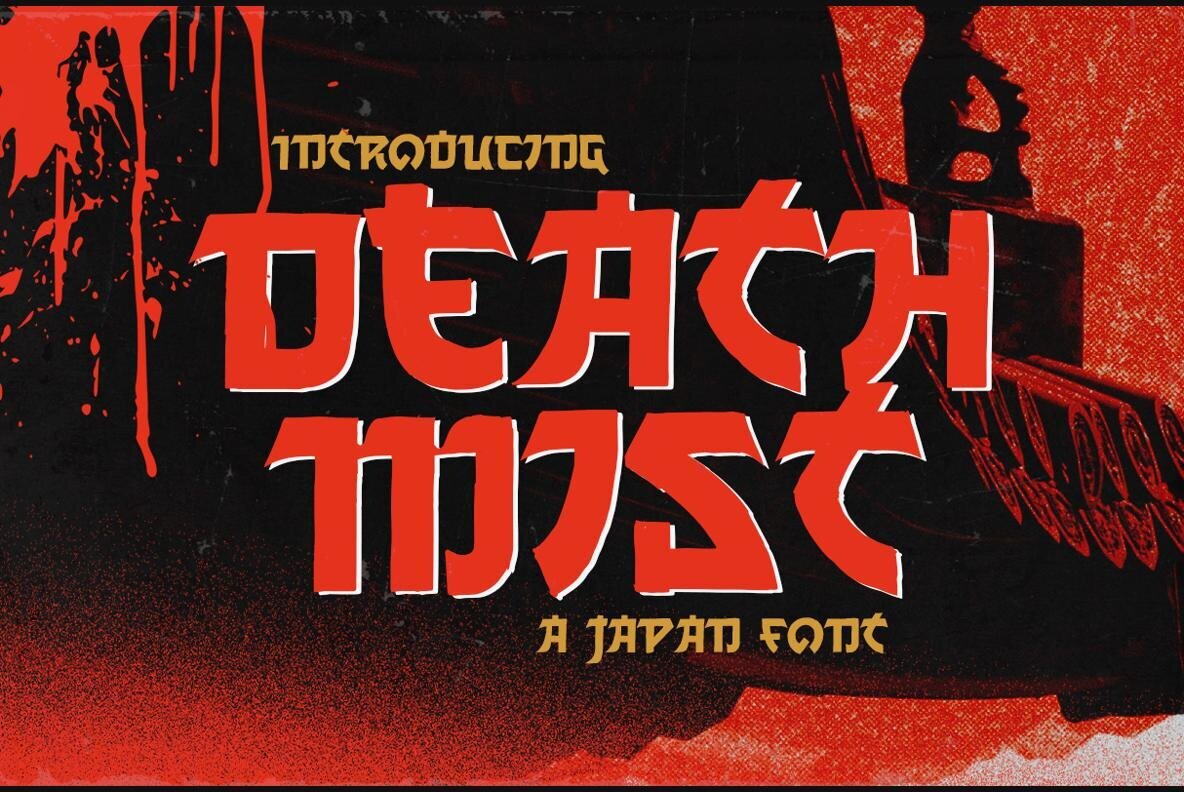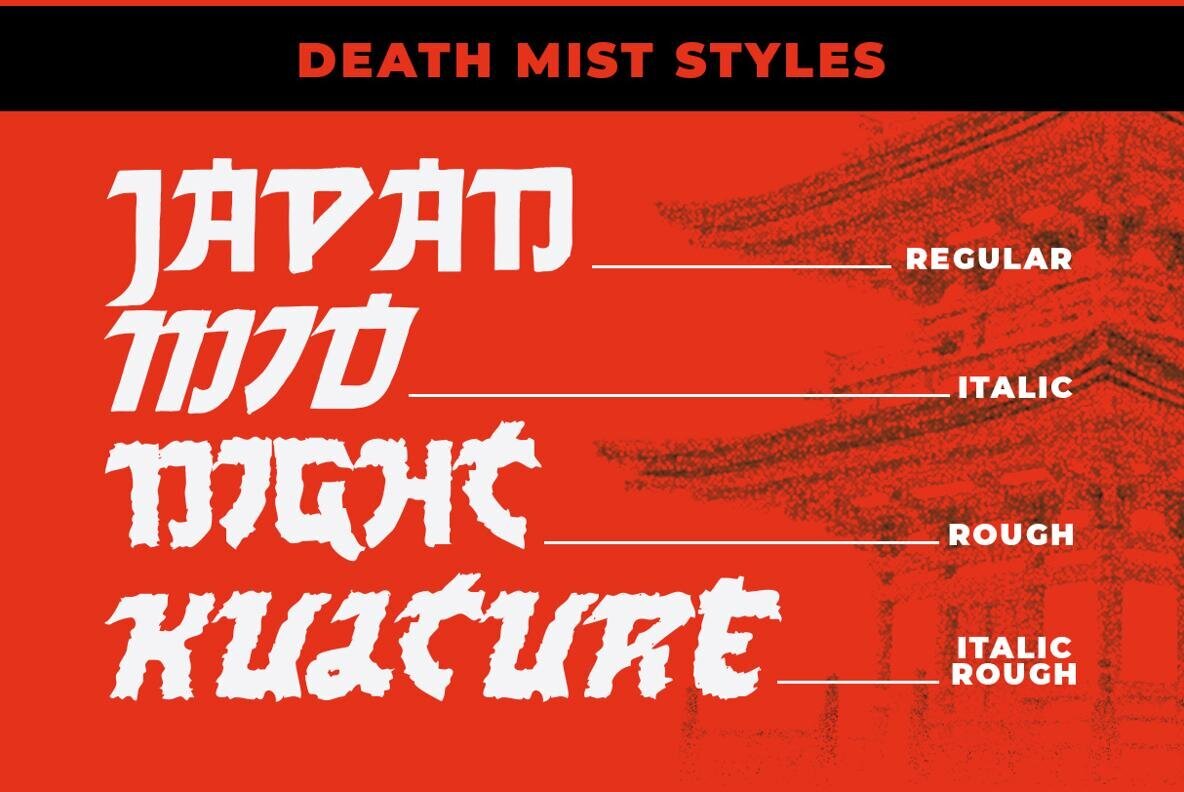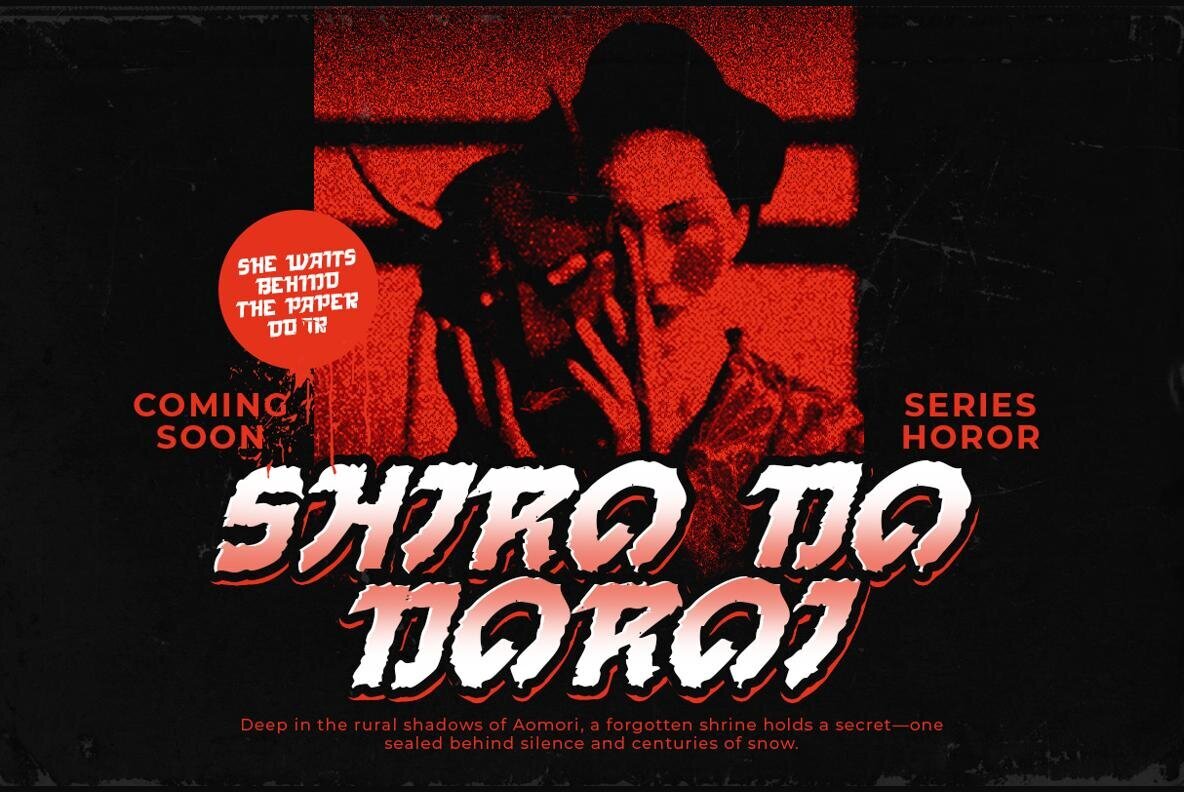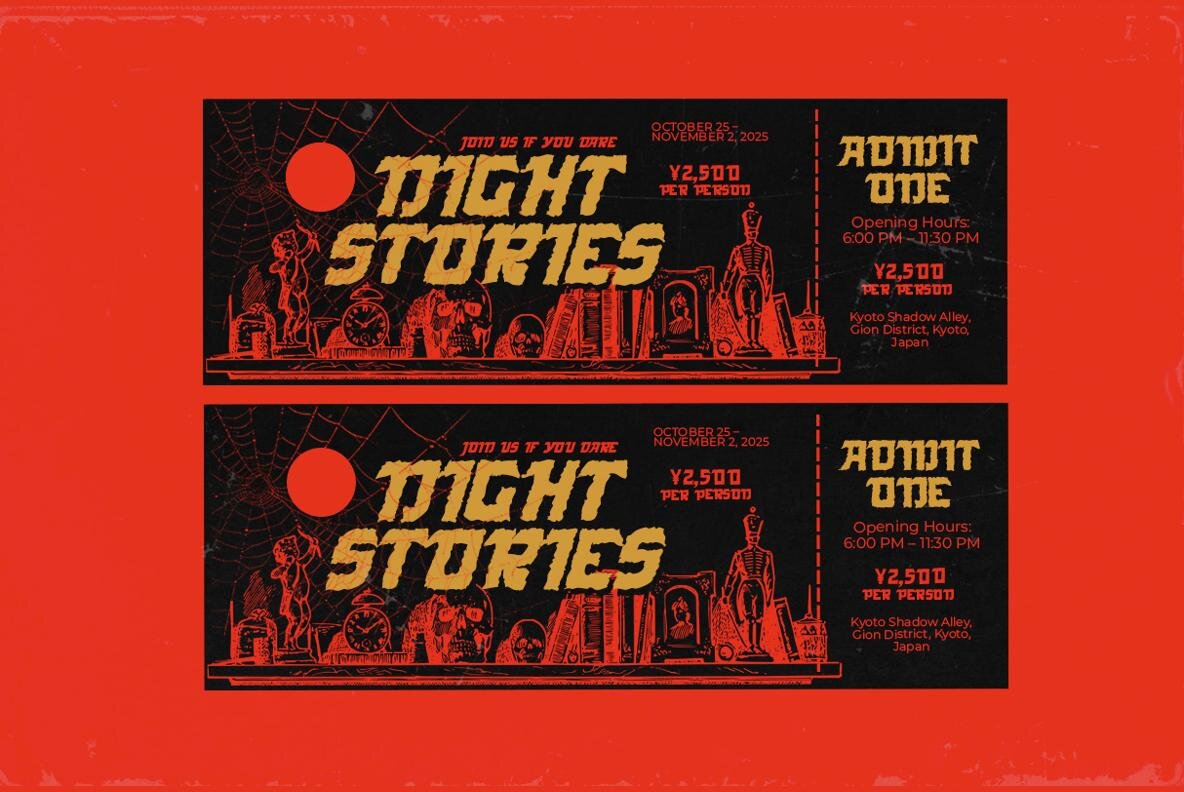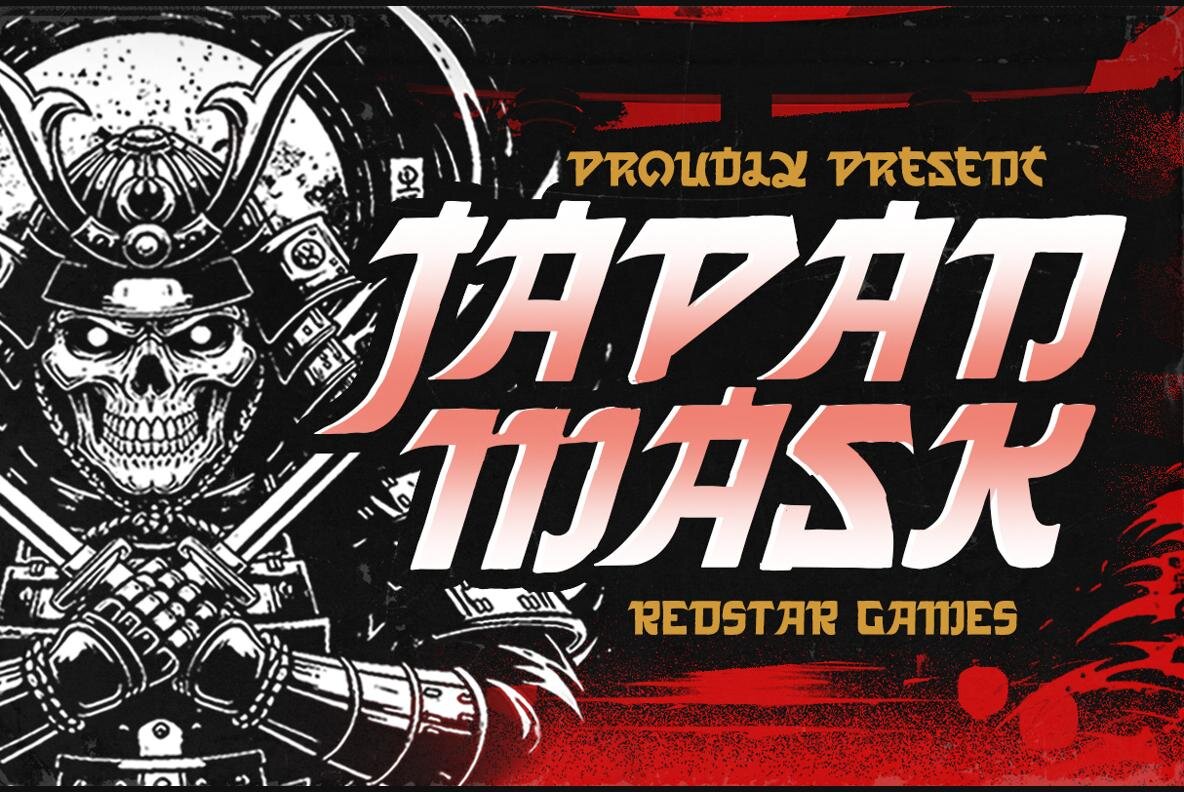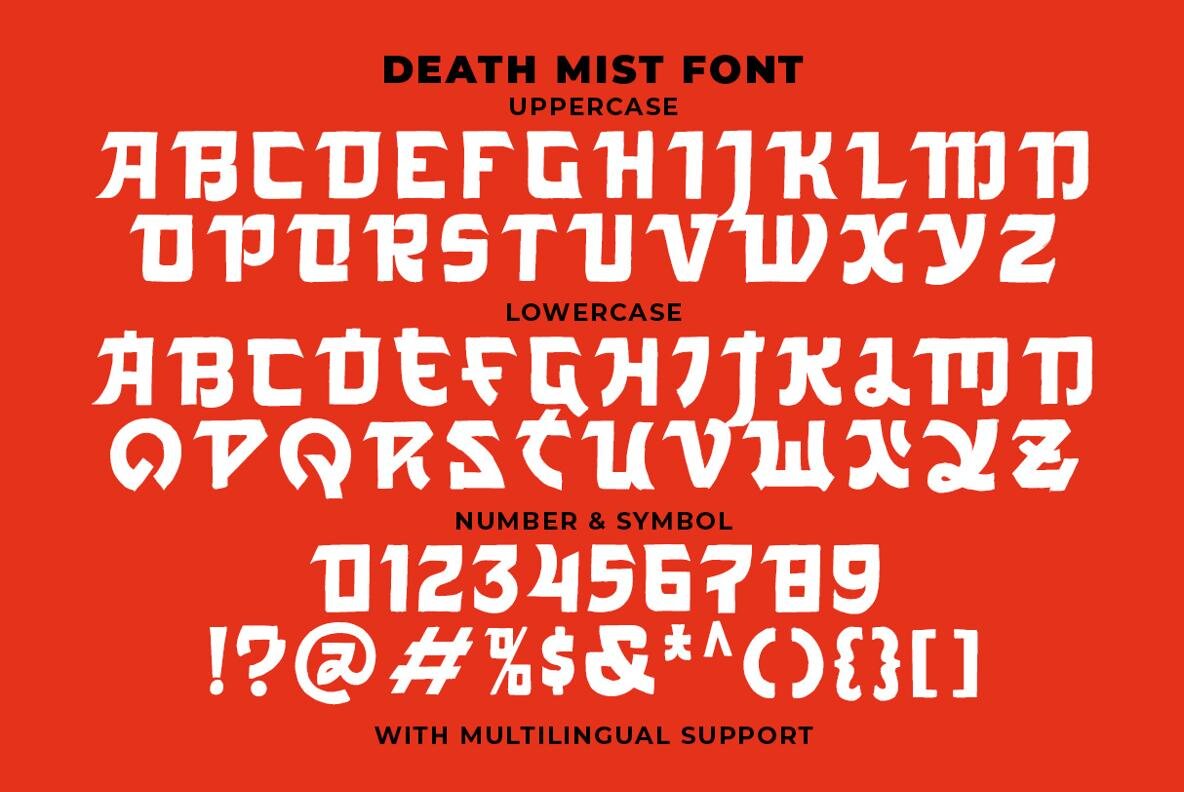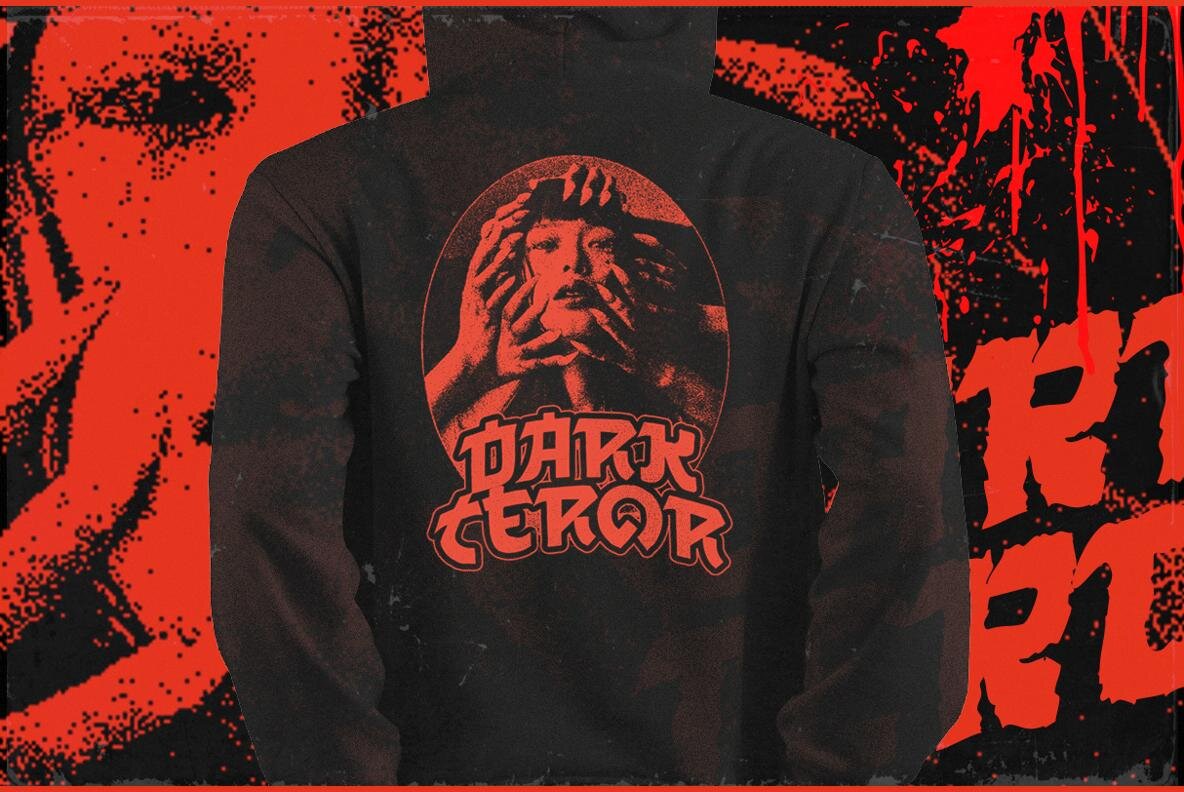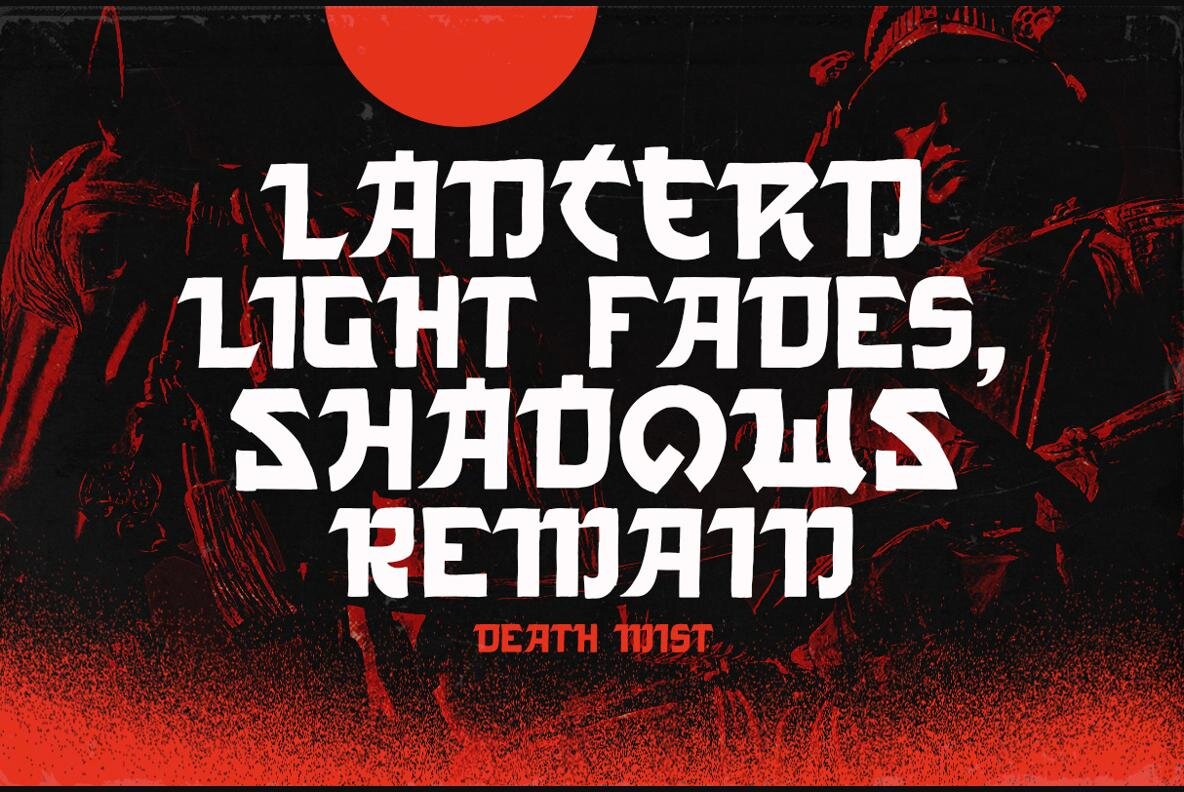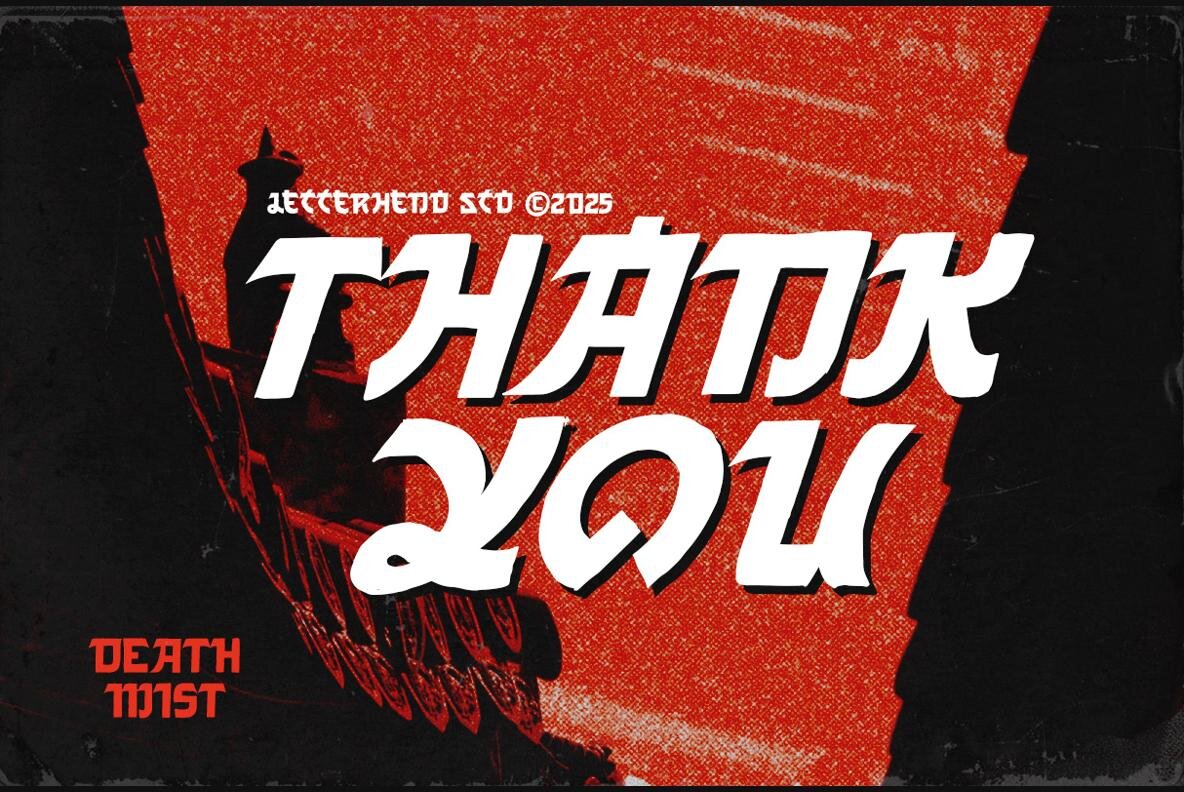
Death Mist Font
Death Mist commands attention with its bold, razor-sharp letterforms influenced by Japanese design. Wrapped in a gritty, blood-red aura, this font exudes a raw energy perfect for elevating horror movie titles, heavy metal album covers, and game logos. Its dramatic and dark aesthetic is designed to make your message unforgettable. Every curve and cut in Death Mist speaks of intensity, pushing typography beyond the ordinary. With its fierce yet cohesive appearance, any creative project using Death Mist won't just stand out; it will leave a lasting impression that is fierce and impactful. Unlock the full potential of this font by using applications like Adobe's suite or Corel Draw that support OpenType features and Glyphs panels. This allows access to all unique Glyph variations for a more dynamic design.Death Mist Font